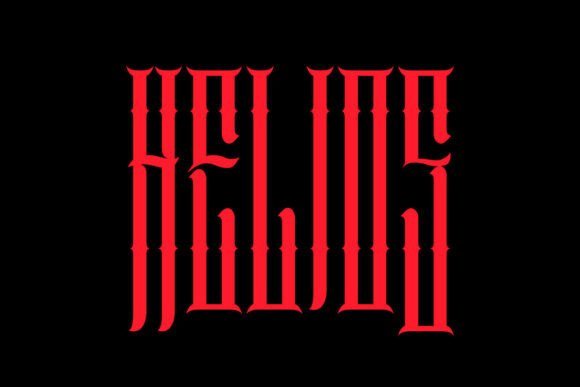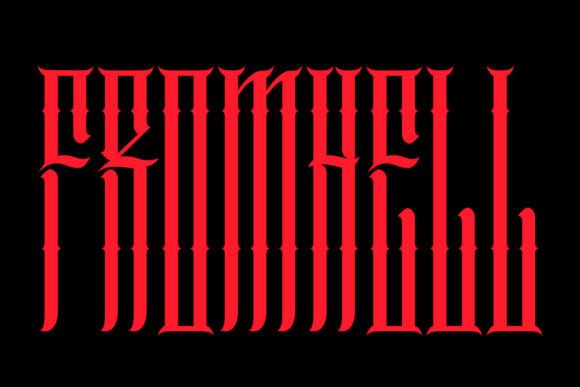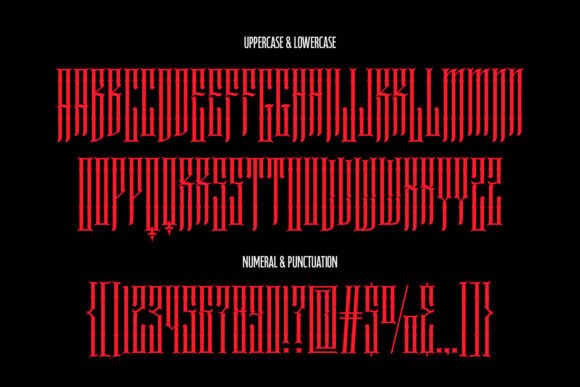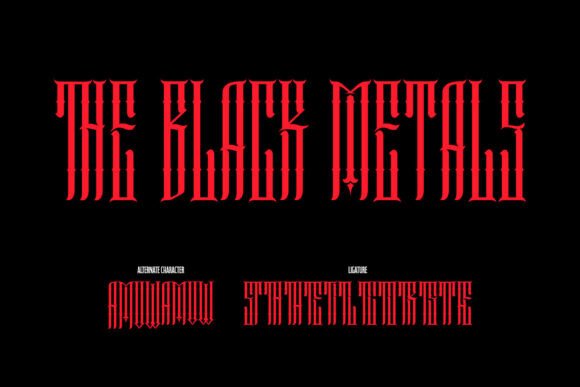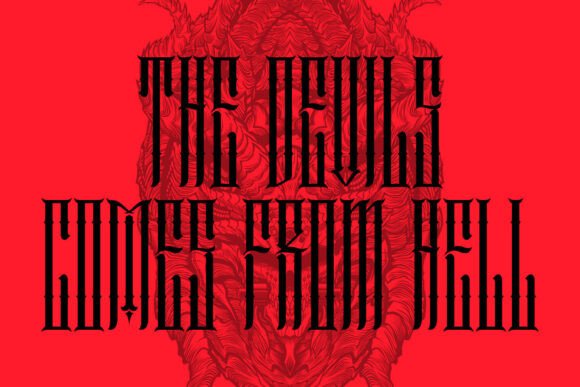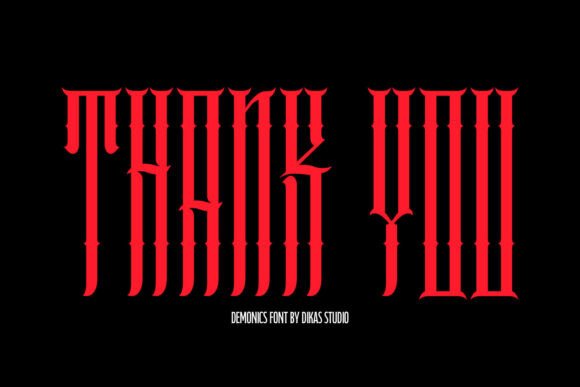
The Haunting Elegance of Demonics Font: A Designer’s Dream for Spooky Projects
I still remember the Halloween project that pushed me to the edge. A client asked for a poster that would make trick-or-treaters shiver with delight (or fear, depending on their bravery level). The catch? It had to be bold, eerie, and uniquely captivating. As I scrolled through font libraries, one striking blackletter font caught my eye: Demonics. Its tall characters and horn-like serifs seemed to scream, “This is the one!” In this article, I’ll share my journey with Demonics, its features, and how to make the most of this hauntingly bold font in your designs.
First Impressions: What I Love About Demonics
Here’s what makes Demonics a standout in the font world:
- ✨ Unique Aesthetic: Demonics boasts a distinctive blackletter style with an edgy, modern twist. The tall characters and horn-like serifs give it a supernatural feel that’s perfect for horror-themed designs.
- ✅ Versatility: Whether you’re creating Halloween posters, spooky t-shirts, or eerie merchandise, Demonics adapts seamlessly to various design needs.
- 💡 Legibility: Despite its bold and intricate design, Demonics remains surprisingly legible, making it ideal for both headlines and body text.
Honest Review: The Not-So-Perfect Aspects
No font is perfect, and Demonics has a few quirks:
- 🤔 Limited Use Cases: While Demonics excels in horror and supernatural themes, it might not be the best fit for more traditional or elegant designs.
- ⚠️ Glyph Overload: With such a rich set of glyphs and alternates, it can be overwhelming to navigate, especially for beginners.
The Story Behind Demonics
While the origins of Demonics might be shrouded in mystery, it’s clear that its design draws inspiration from centuries-old blackletter fonts, infused with a modern twist. Designers likely aimed to evoke a sense of darkness and mystery, perfect for capturing the essence of horror and the supernatural.
| Font Name | Demonics Font |
| Author | Dikas Studio |
| What makes Demonics unique? | Demonics stands out with its tall characters, horn-like serifs, and a bold blackletter style that screams horror and supernatural themes. |
| Is Demonics difficult to read? | While it’s bold and intricate, Demonics maintains good legibility, especially in larger sizes, making it suitable for headlines and short texts. |
Demonics is more than just a font; it’s a design statement. Its unique blend of horror and elegance makes it a valuable addition to any designer’s toolkit. Whether you’re crafting spooky Halloween posters or creating eerie merchandise, Demonics can help you achieve that hauntingly bold look. So, don’t be afraid to let your designs take on a life of their own with Demonics.